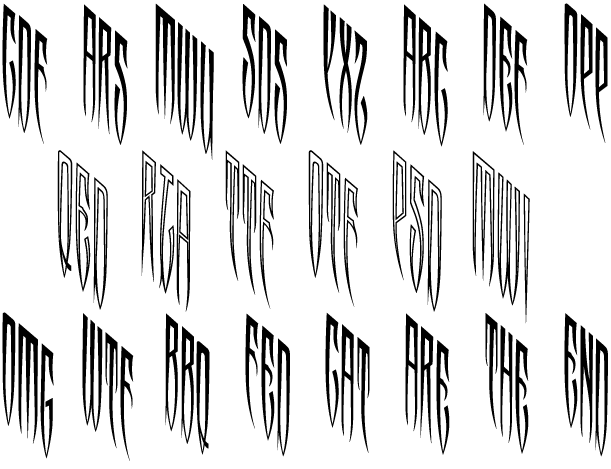
Viper Monogram
About Viper Monogram
The inspiration source for Viper Monogram is the 1934 Book of American Types by American Type Founders. Found in that specimen book was a sophisticated two-color monogram design called Hollywood Combination Initials. This wonderful monogram style is now…